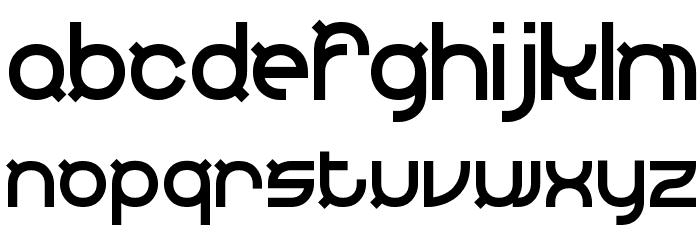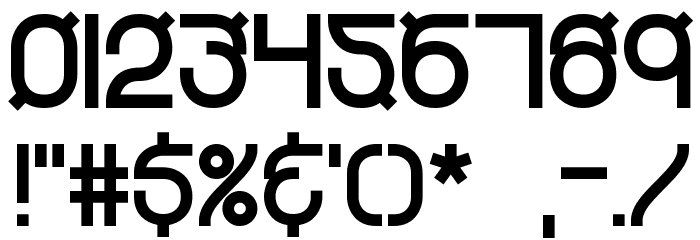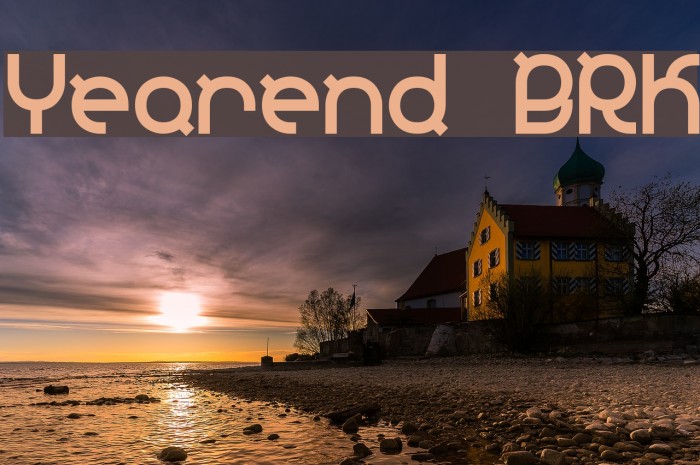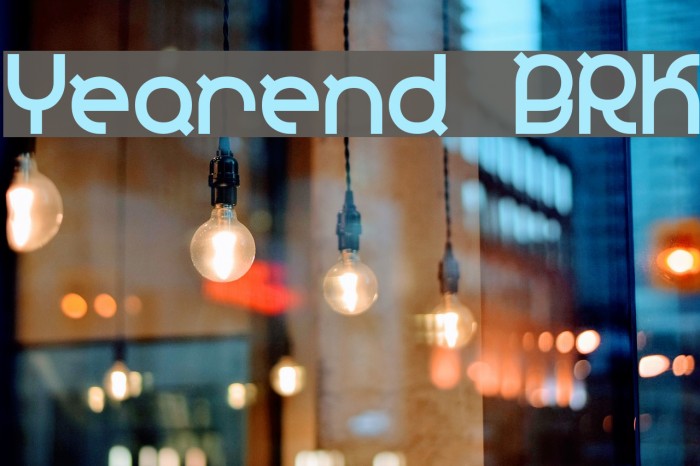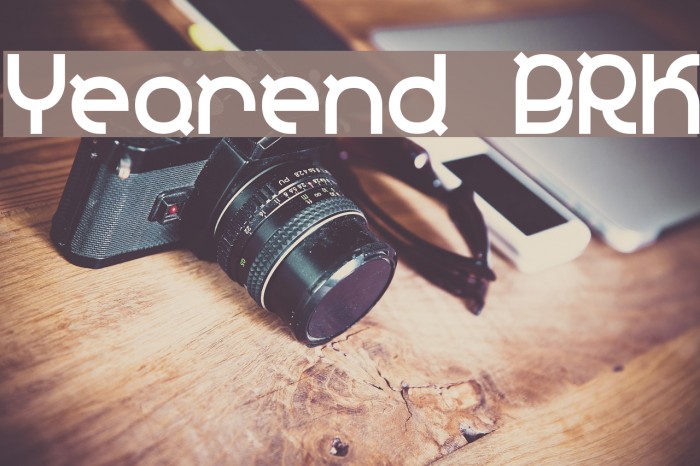
Yearend BRK Font
This font features a unique, geometric design with a modern twist. The characters are bold and have a distinct, angular appearance, giving them a futuristic and tech-inspired look. The uppercase and lowercase letters maintain a consistent style, with sharp edges and a uniform thickness throughout. Numbers and special characters follow the same design principles, ensuring a cohesive appearance across all elements. The font's structure is clean and uncluttered, making it suitable for various digital and print applications where a contemporary and eye-catching style is desired.
A bold, geometric font with a modern, tech-inspired design.
- Proposed Projects: Ideal for technology branding, digital media, posters, and futuristic-themed projects.